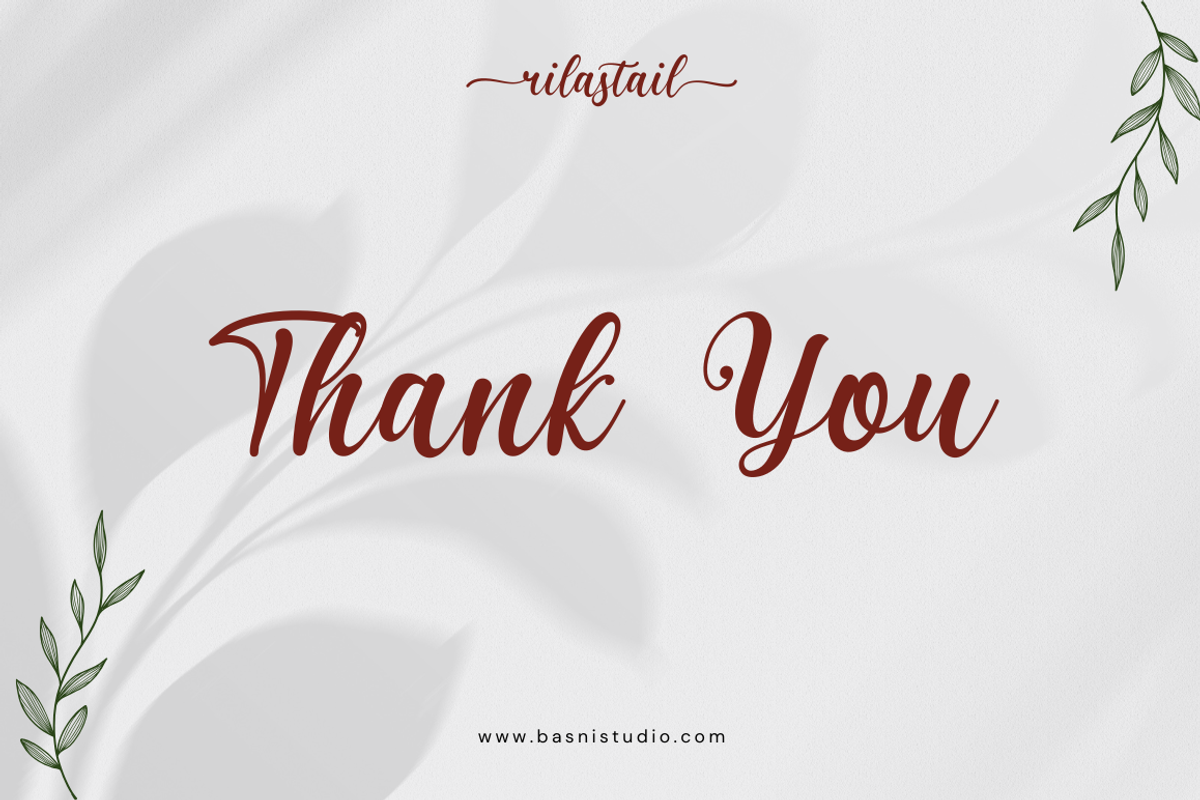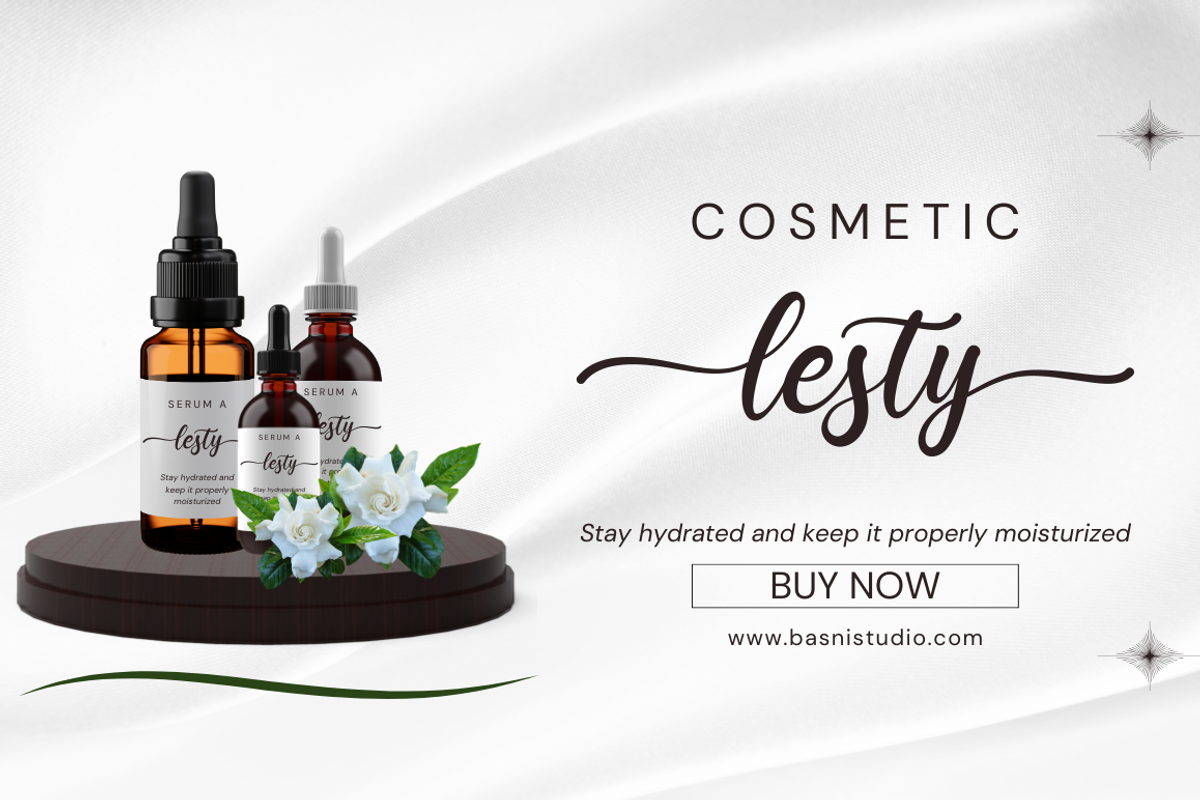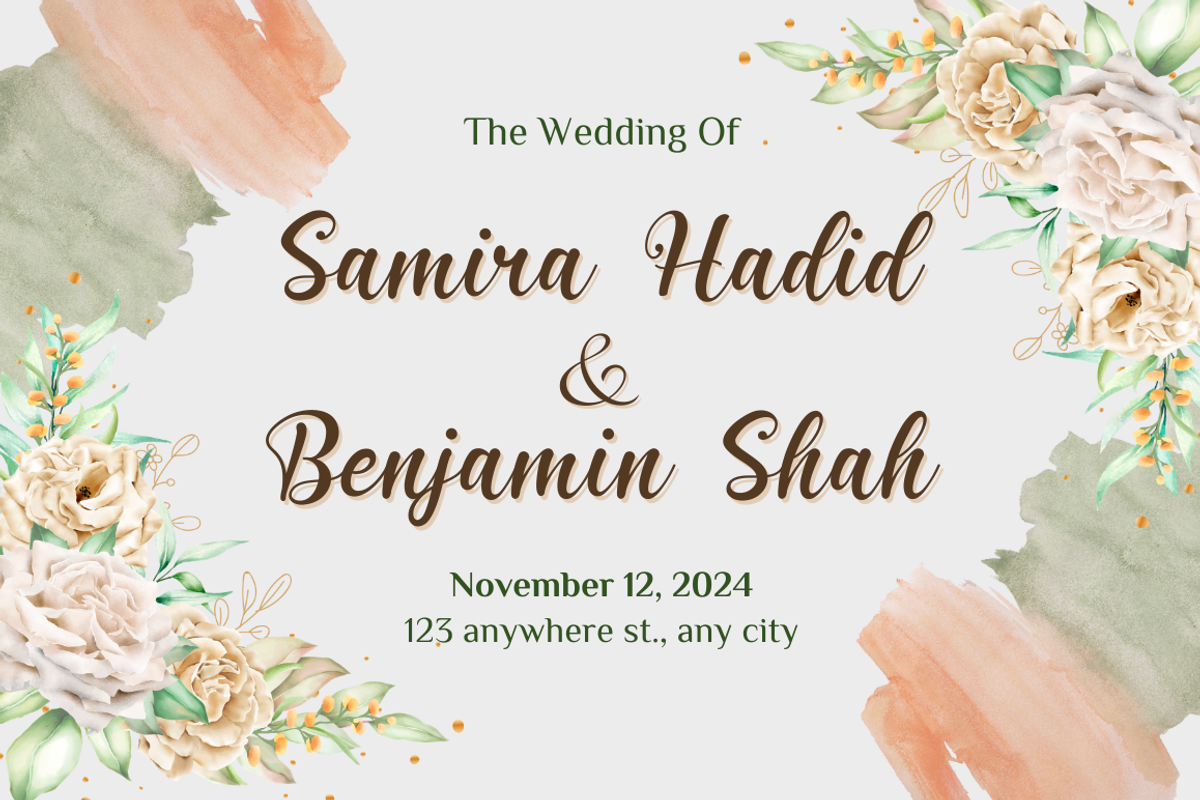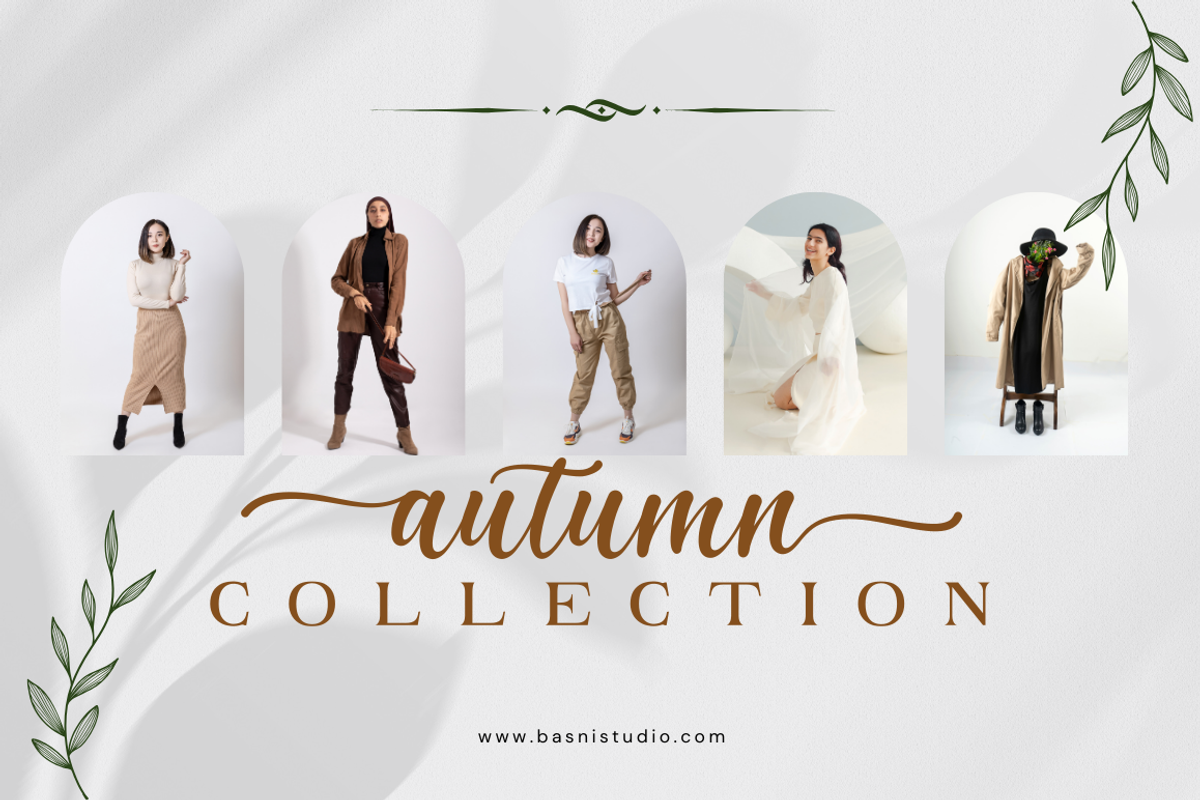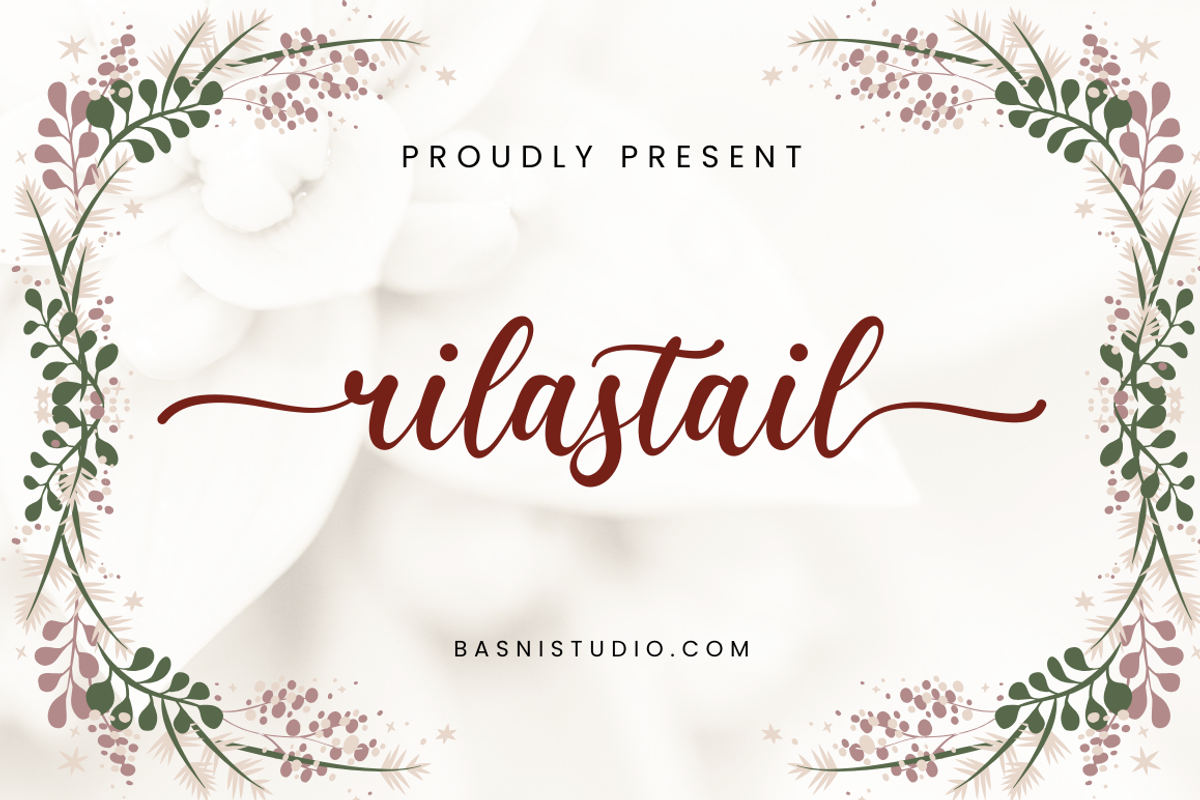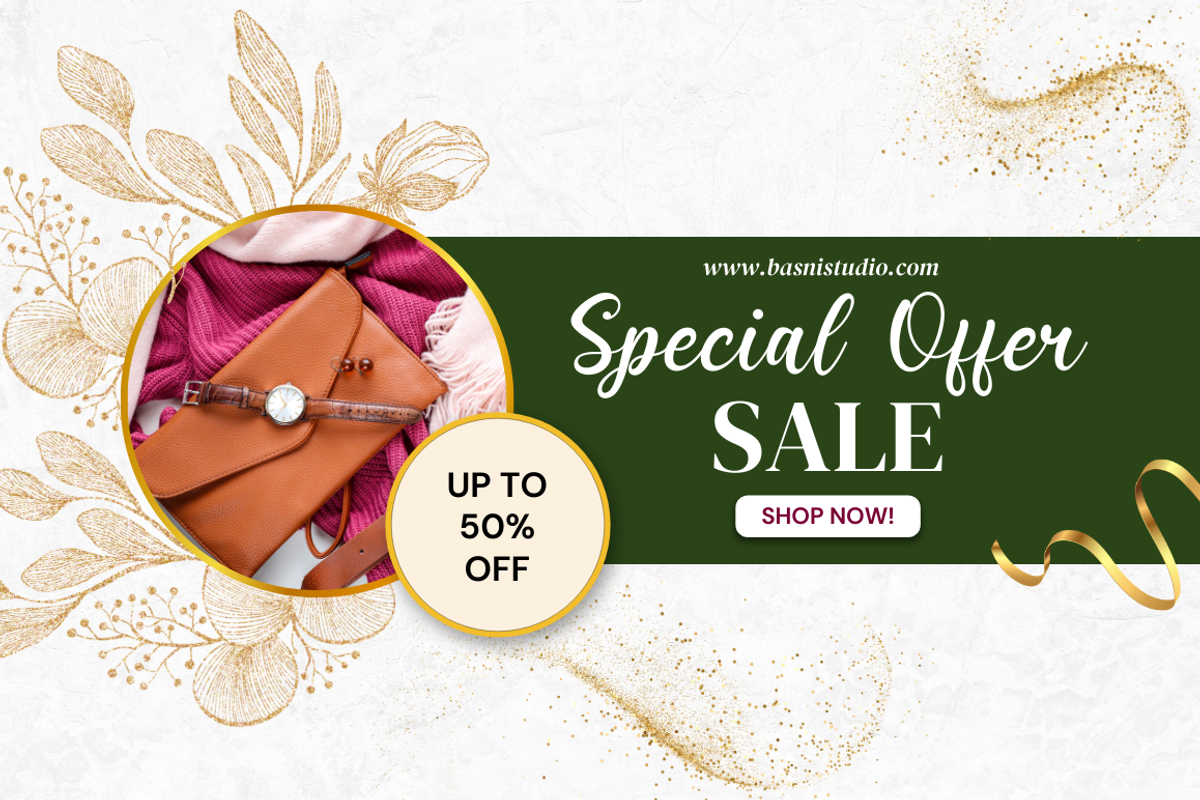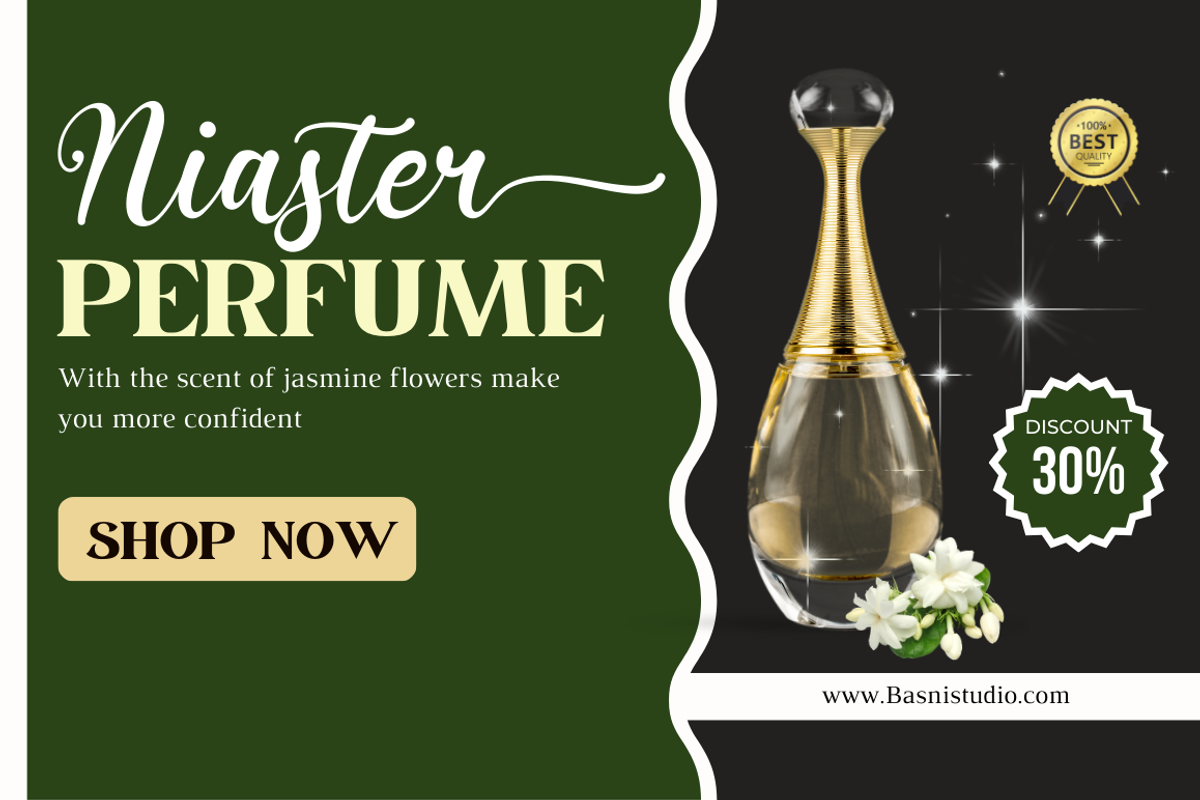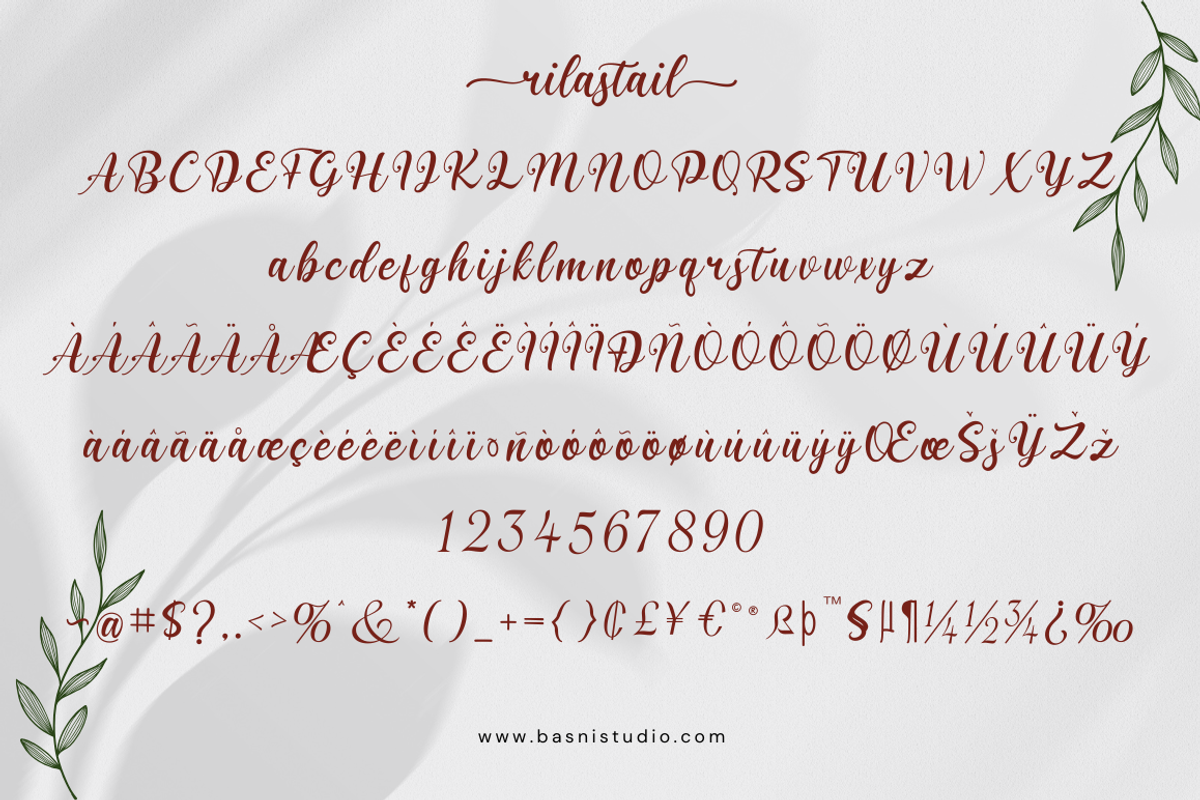
Rilastail Modern Calligraphy Font
Introducing Rilastail Modern Calligraphy Font
Rilastail Modern Calligraphy Font, made with Naturaly & precision, perfect for branding, websites, and editorial designs. Includes all Characters letters, multilingual support, punctuation, binding. everything can be easily accessed using software that supports OpenType. What’s include: